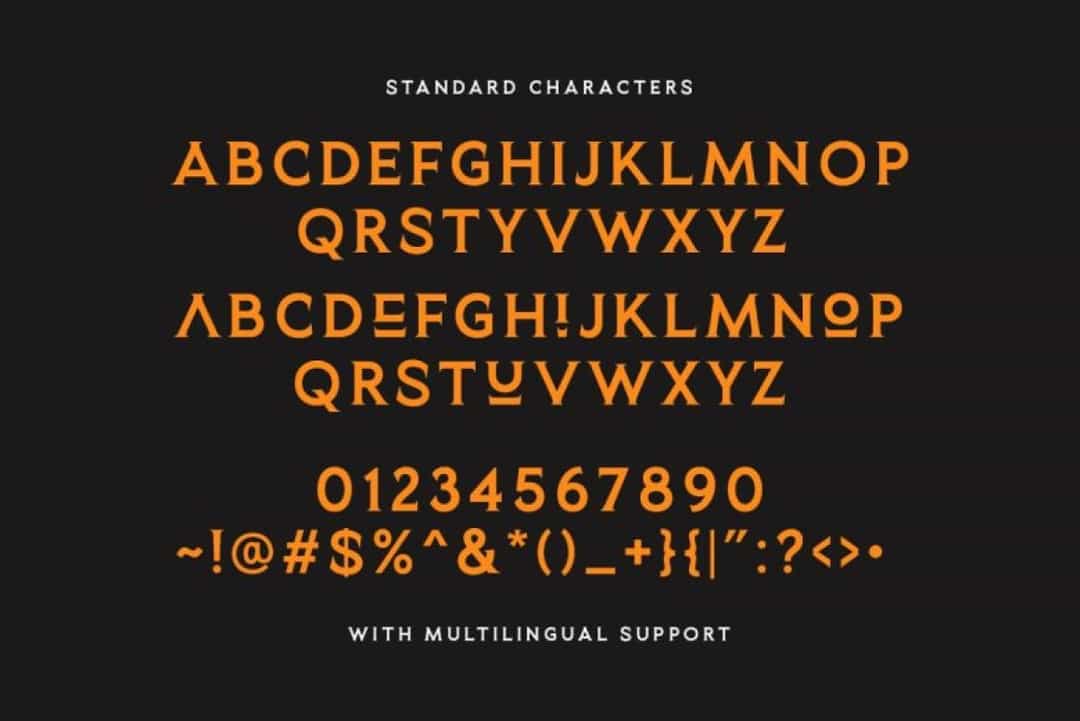
Planet Gamers can be described as an elegant serif font featuring distinctive and carefully designed Ligatures that help your brand to stand out clearly and contemporary. Perfect for creating logotypes for Esports, Games or Hi Tech Corporations; additionally supports multilingual applications.